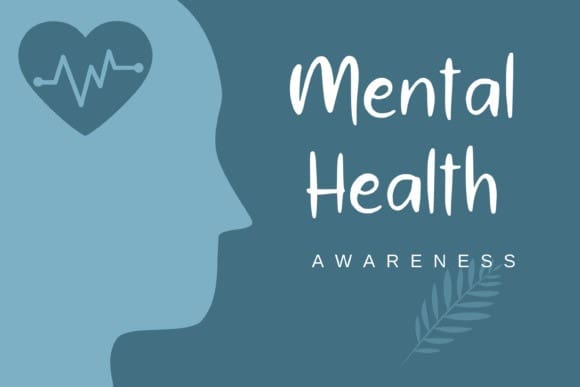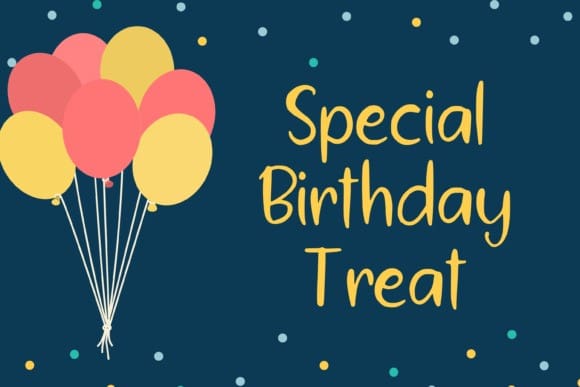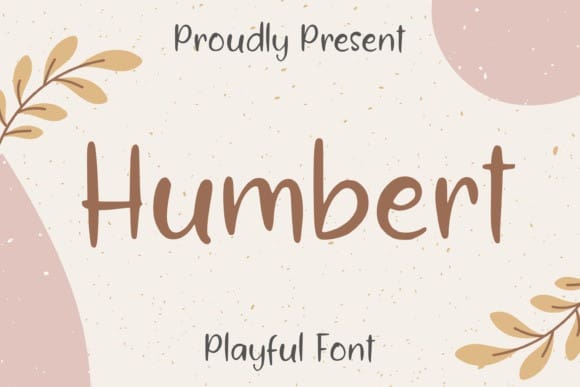
Humbert Font
Humbert Font is a playful and friendly handwritten font perfect for SVG designs, farmhouse signs, T-shirts, branding, ornaments, mugs, headings, blogs, logos, invitations and more! Add this font to your favorite creative ideas, and notice how it makes them stand out!